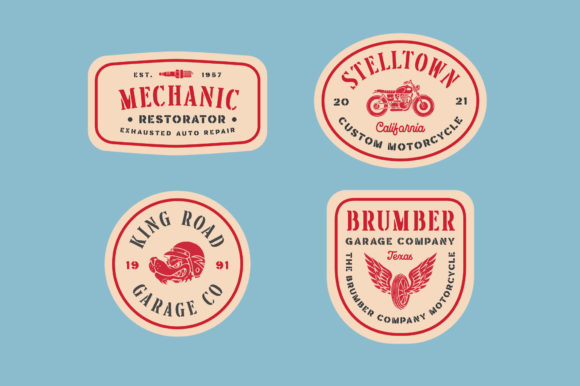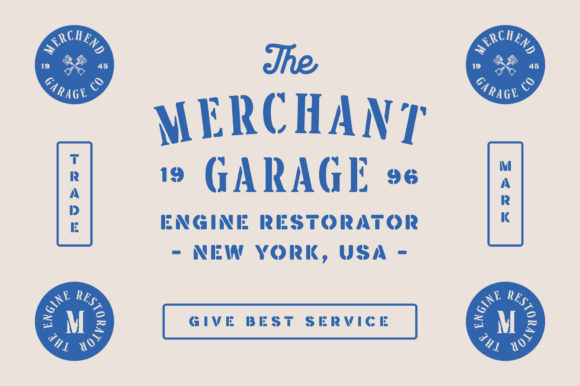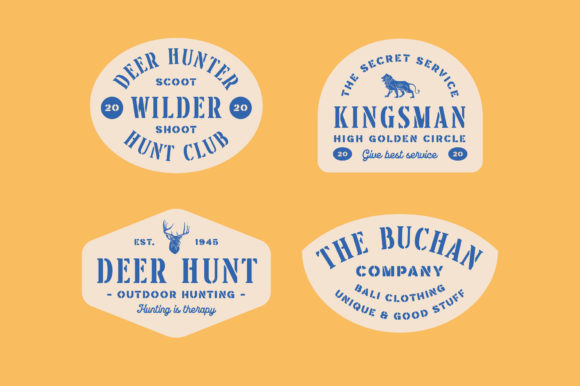
Brocades Font
The font collection is called “Brocades”, it is a crafted display with vintage themes. These collections contain monoline script, sans serif stencil, and serif stencil. Every font comes with style typefaces (regular, rounded, rough, and stamp). Brocades give more dingbats as well (animals and motorcycles). The Brocades matches some designs such as logotypes, posters, labels, badges, packaging, apparel, branding, and other custom designs.This font is PUA encoded, which means you can access all of the glyphs and swashes with ease!